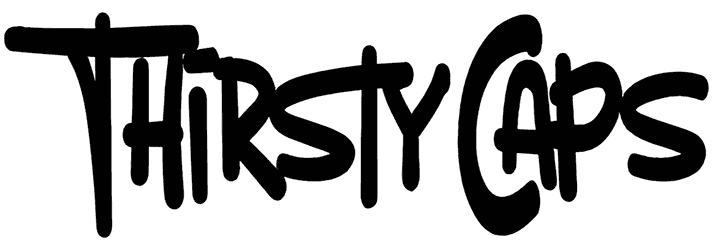
Thirsty Caps Font
Are you thirsty for an urban and artistic proposal for presenting your next design? Then Thirsty Caps is here to throw the formal ways down. Even though this graffiti font doesn’t have lowercase, it can make a cool, auda…
Are you thirsty for an urban and artistic proposal for presenting your next design? Then Thirsty Caps is here to throw the formal ways down. Even though this graffiti font doesn’t have lowercase, it can make a cool, audacious vibe for designs. Just test Thirsty Caps with your creative designs, such as flyers, backgrounds, covers, or anything, and be noticeable.